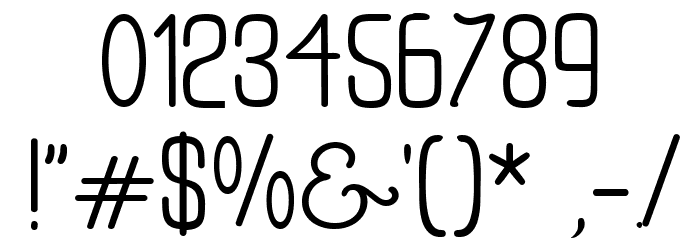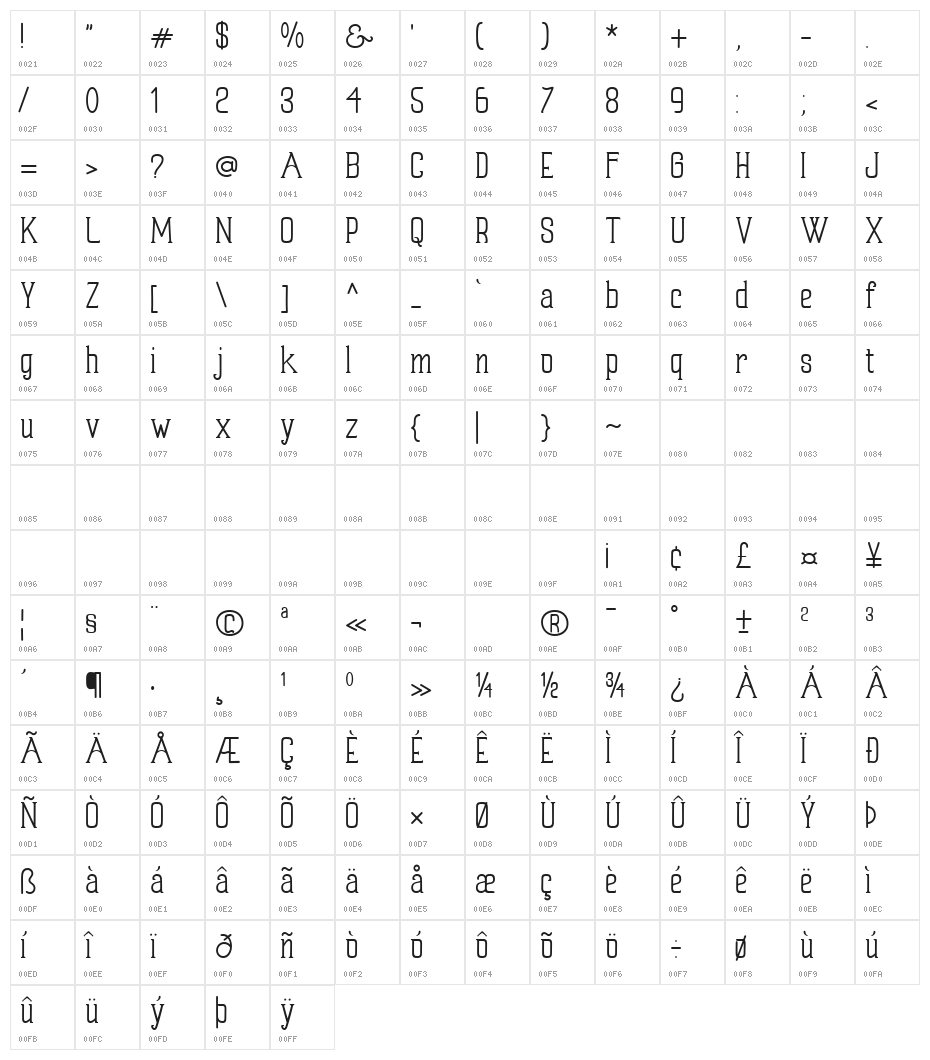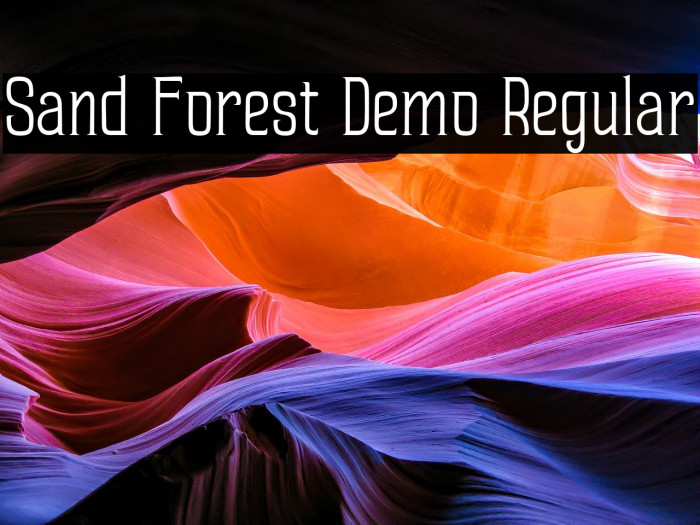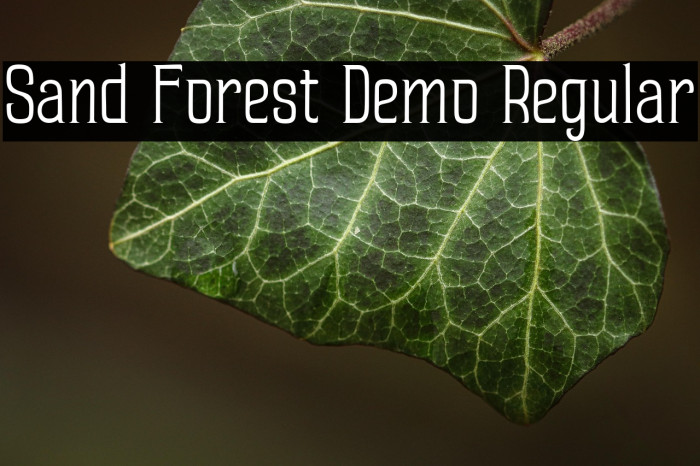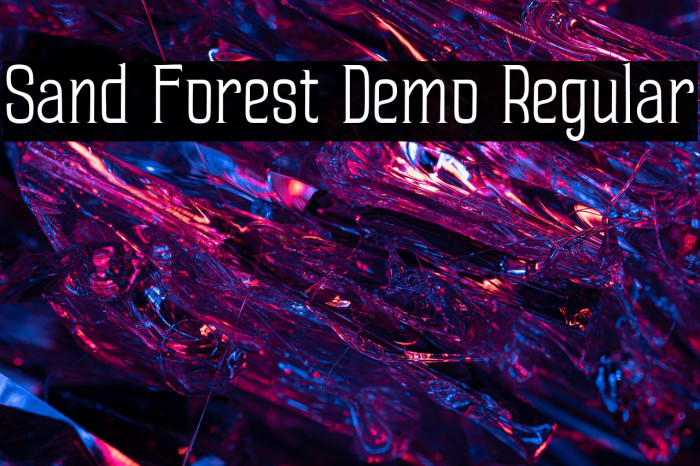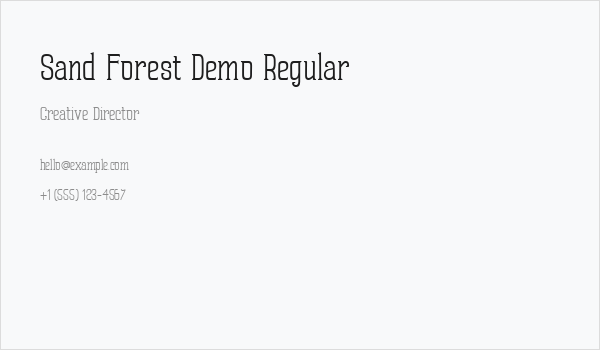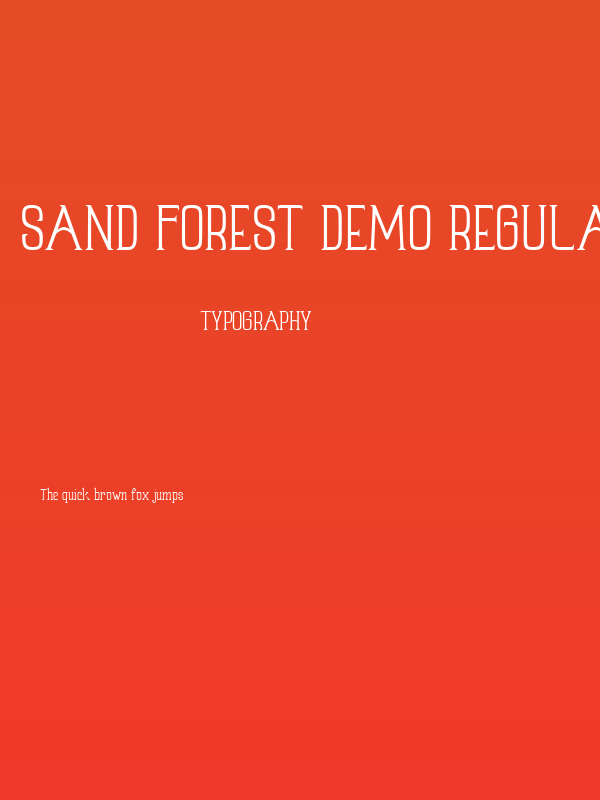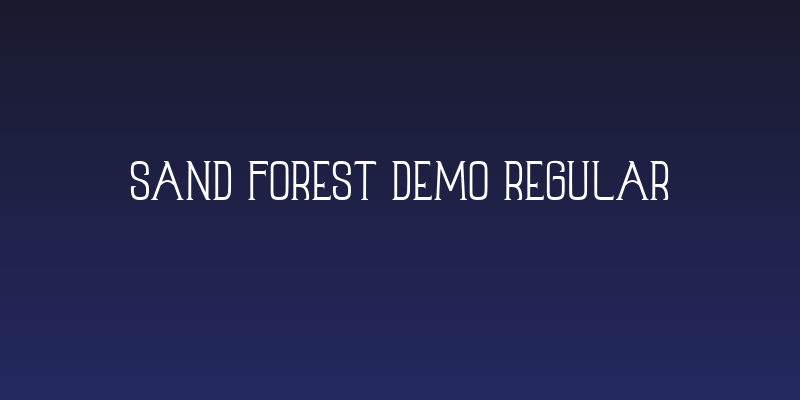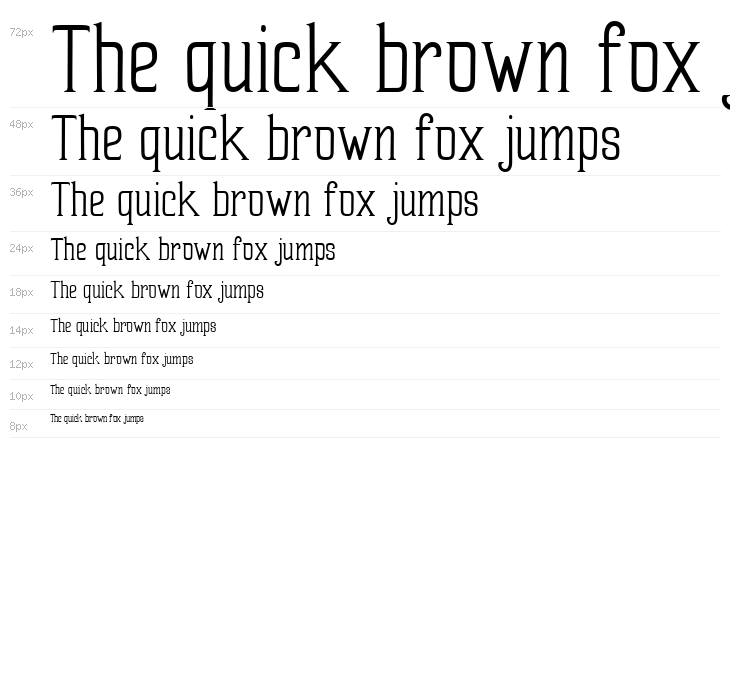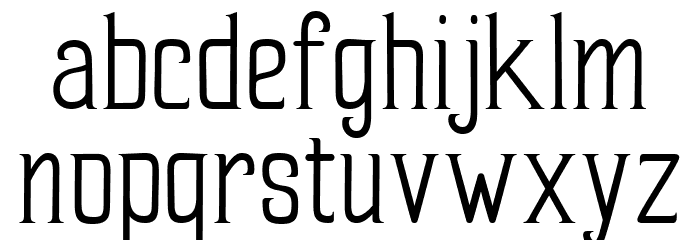
Sand Forest Demo Regular Font
Sand Forest Demo Regular Description
This font features a unique blend of modern and vintage elements, characterized by its tall, narrow letterforms and subtle serifs. The uppercase letters are particularly elongated, giving a sense of elegance and sophistication. The lowercase letters maintain a consistent style, with a slightly playful touch due to their rounded edges. Numbers are clear and legible, matching the overall aesthetic of the alphabet. Special characters are well-integrated, ensuring versatility in various design contexts. The font's distinct style makes it suitable for creative projects that require a touch of class and originality.
| Overall Style | Modern Vintage |
| Proposed Projects | Ideal for branding, editorial design, posters, and invitations. |